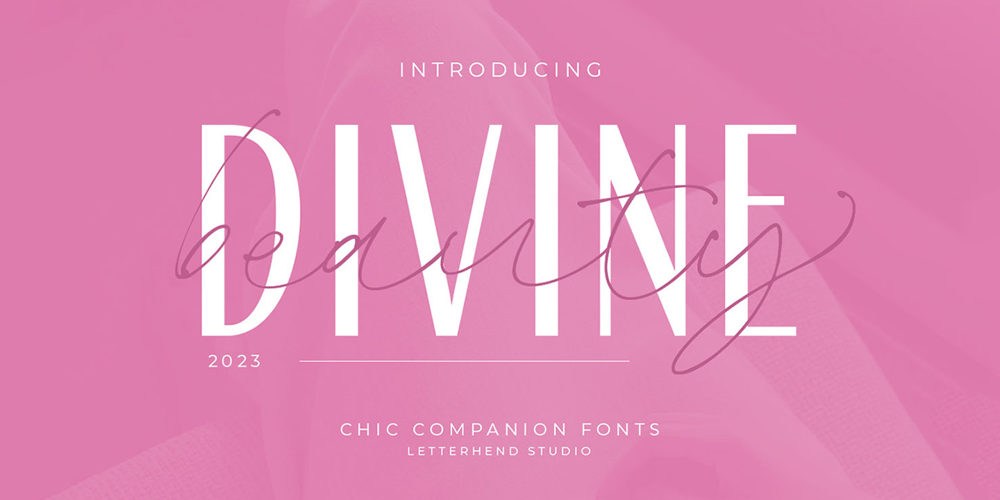
Divine Beauty
Divine Beauty font
Divine Beauty Font Family was designed by Hendry Juanda and published by Letterhend. Divine Beauty contains 2 styles and family package options. The Devine Beauty font is characterized by its simplicity and modernity. The clean lines and balanced proportions of the sans-serif font complement the elegant curves and flourishes of the serif font, creating a harmonious and visually appealing pairing. Overall, Devine Beauty is a stylish and refined font that is perfect for adding a touch of sophistication to any design, especially in logo, and the other various formal forms such as invitations, labels, logos, magazines, books, greeting / wedding cards, packaging, fashion, make up, stationery, novels, labels or any type of advertising purpose.Features : Uppercase & lowercase Numbers and punctuation Alternates & Ligatures Multilingual PUA encoded We highly recommend using a program that supports OpenType features and Glyphs panels like many of Adobe apps and Corel Draw, so you can see and access all Glyph variations.